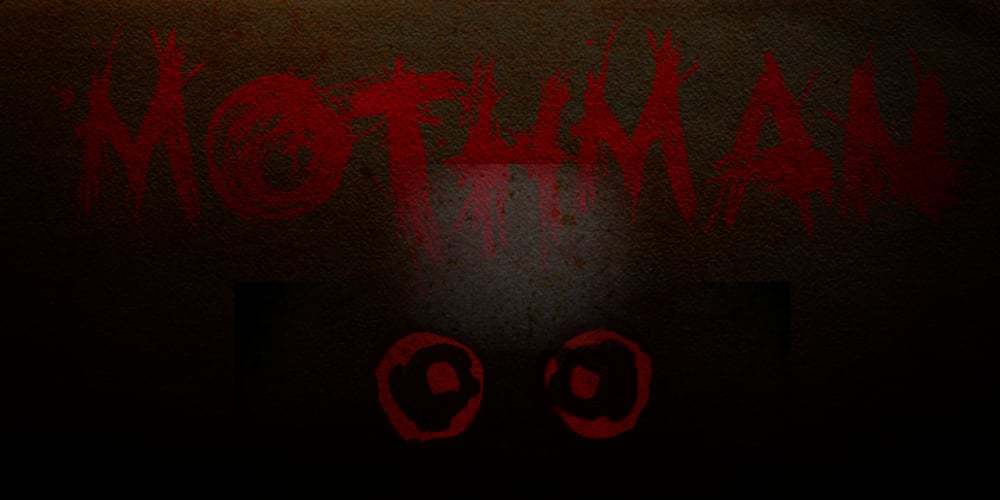
Mothman
Mothman font
Mothman Font Family was designed by David Kerkhoff and published by Hanoded. Mothman contains 1 styles and family package options. In 1966 and 1967 a series of weird events spooked Point Pleasant, a small town in West Virginia. Townspeople described a creature that looked like a man, with red eyes and moth-like wings, which appeared at several locations around town. The Mothman myth was born. Mothman font is spooky as well. It is a very scratched and distorted typeface, completely hand drawn, using ink and various sharp utensils. Mothman font will surely leave a lasting impression!